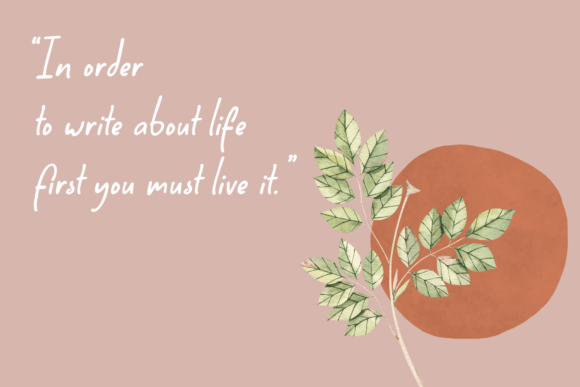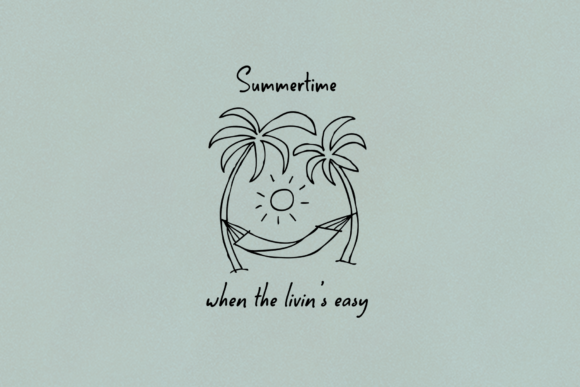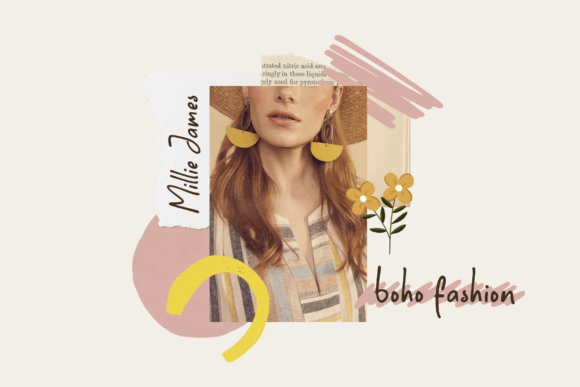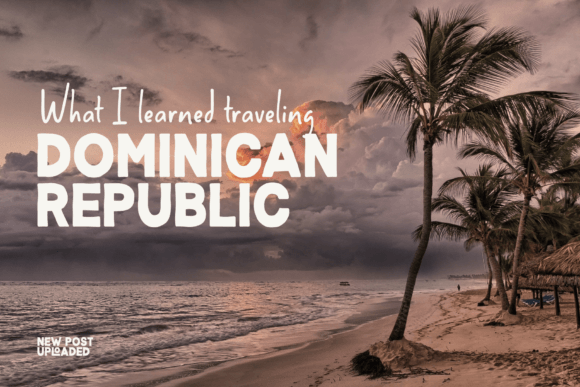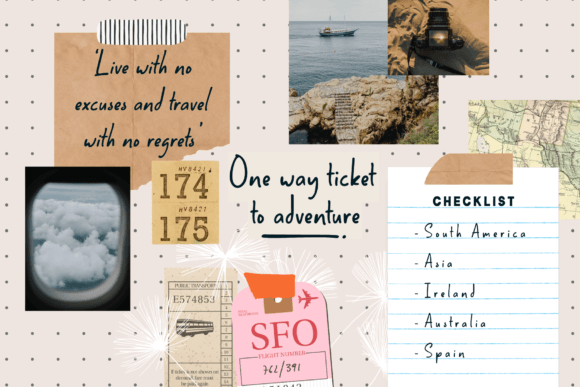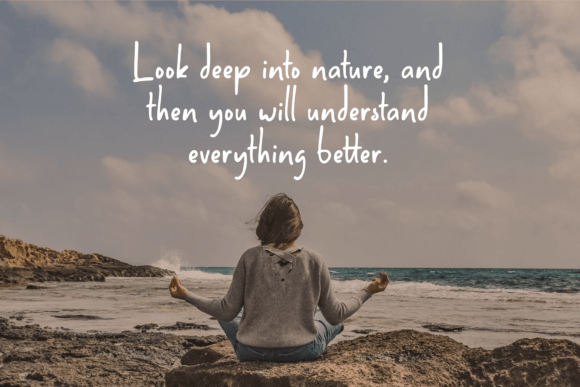
Unlock the Magic of Whimsy in Your Designs
Who hasn’t felt the rush of excitement when brainstorming a new project and the perfect font pops into mind? It’s that ‘aha’ moment when everything starts to fall into place. For designers, it’s about finding that one element that elevates their work from ordinary to extraordinary. Imagine stumbling upon a font that embodies the essence of childhood wonder and playful charm.
| 👤 Author | jinanstd |
Meet Adorable Malkids Font, a delightful note-style font that’s sure to capture the hearts of designers and project enthusiasts alike. This enchanting font, available in both regular and slant versions, is the perfect addition to any project that needs a touch of whimsy. Whether it’s a festive greeting card, a branding campaign, or a quote that needs to stand out, Adorable Malkids Font is the ideal choice to add that captivating sprinkle of joy to your designs.
Key Features of Adorable Malkids Font
- Character Set: Latin, Cyrillic, and Greek alphabets, including a wide range of punctuation and diacritical marks
- Unique Characteristics: Adorable Malkids Font features a playful, hand-drawn design with rounded edges and whimsical flourishes, making it perfect for children’s books, cartoons, and other creative projects
Designer Review: Adorable Malkids Font
Overall, I think Adorable Malkids Font is a great addition to any designer’s toolkit. Here’s what I love about it:
- ✨ Beautiful, playful characters: The font is full of whimsy and charm, making it perfect for designing kids’ books, birthday party invitations, or any project that needs a lighthearted touch.
- ✨ High-quality vectors: The font is well-designed and scalable, so it looks great on any device or screen size.
- ✨ Easy to customize: With its OpenType features, you can easily customize the font to fit your design needs.
Of course, no font is perfect, and here are a few limitations I’ve noticed:
- ⚠️ Limited language support: The font only includes characters for the Latin alphabet, so it may not be suitable for projects that require other languages.
- ⚠️ Not ideal for body text: While the font is great for headlines and titles, it may be a bit too playful for body text, where readability is key.
Overall, I’m really impressed with Adorable Malkids Font. While it may have a few limitations, its unique charm and high-quality design make it a great choice for designers looking to add some personality to their projects.
Adorable Malkids font is perfect for:
- Children’s books and educational materials.
- Party invitations and decorations.
- Food labels and packaging.
For the best results, use the font with bold and playful designs to create a whimsical and eye-catching effect.